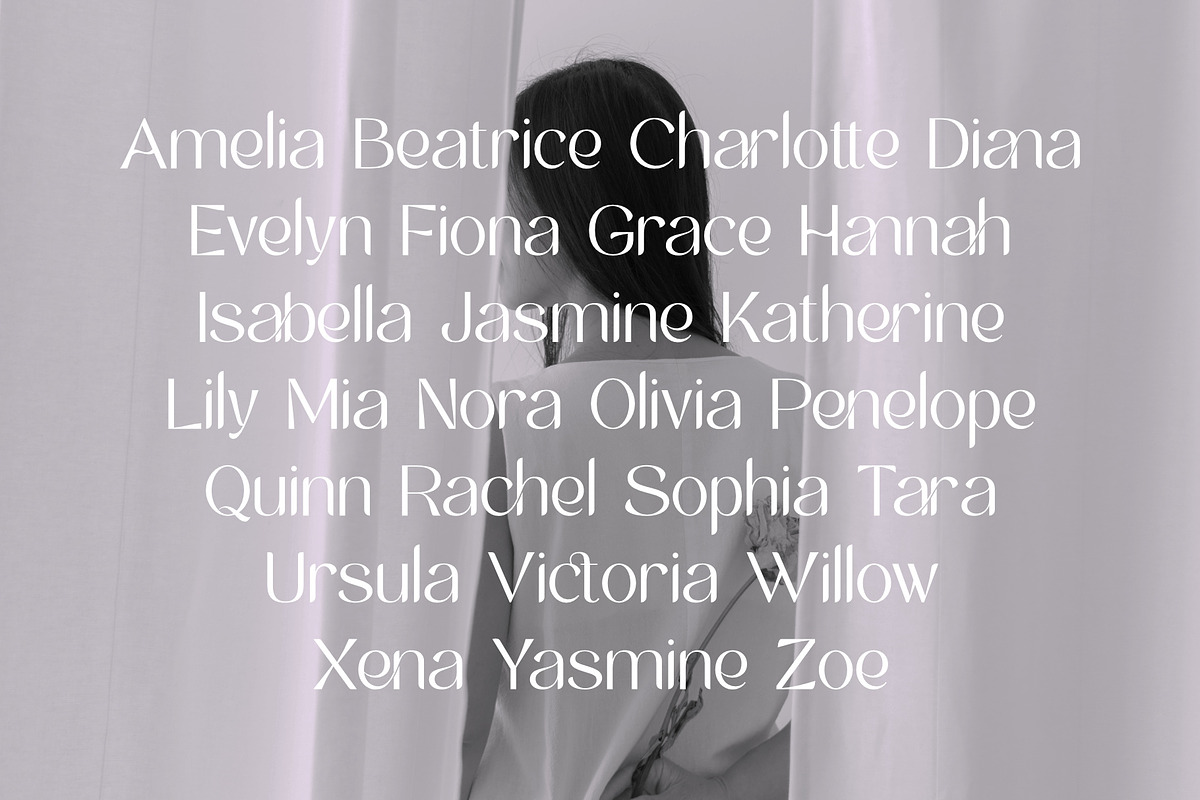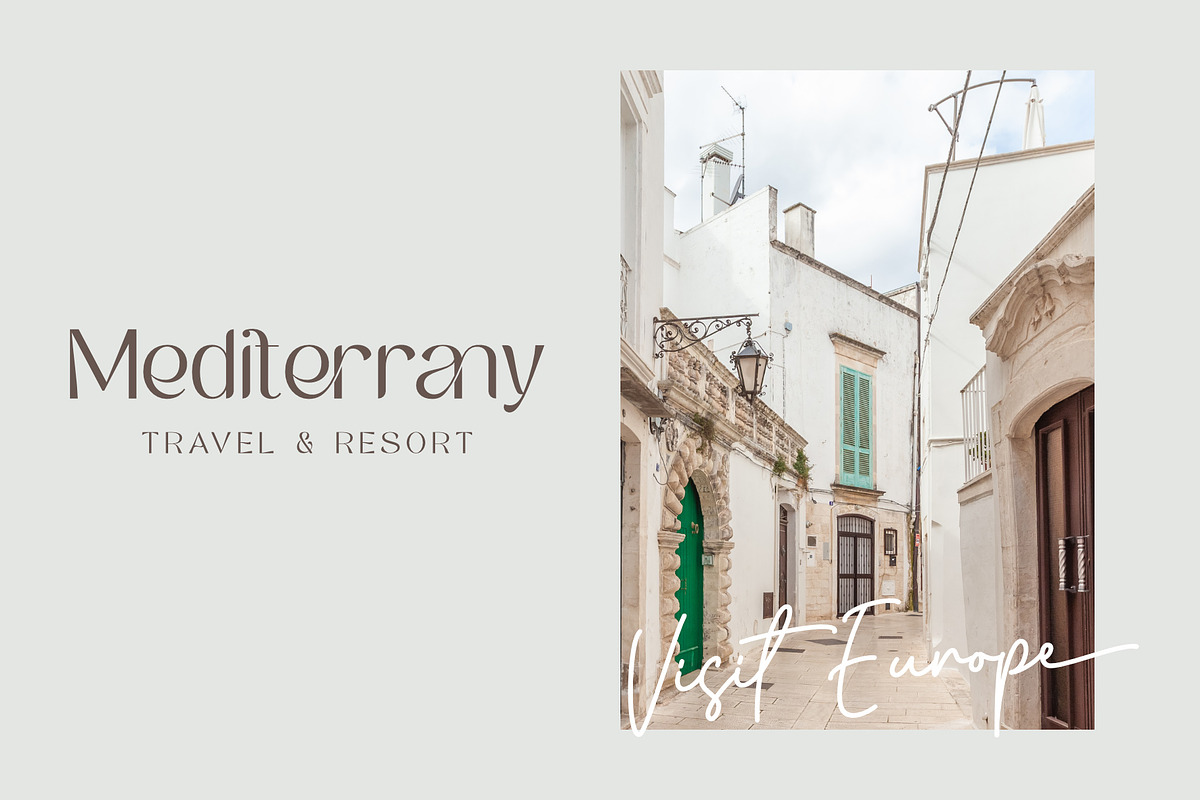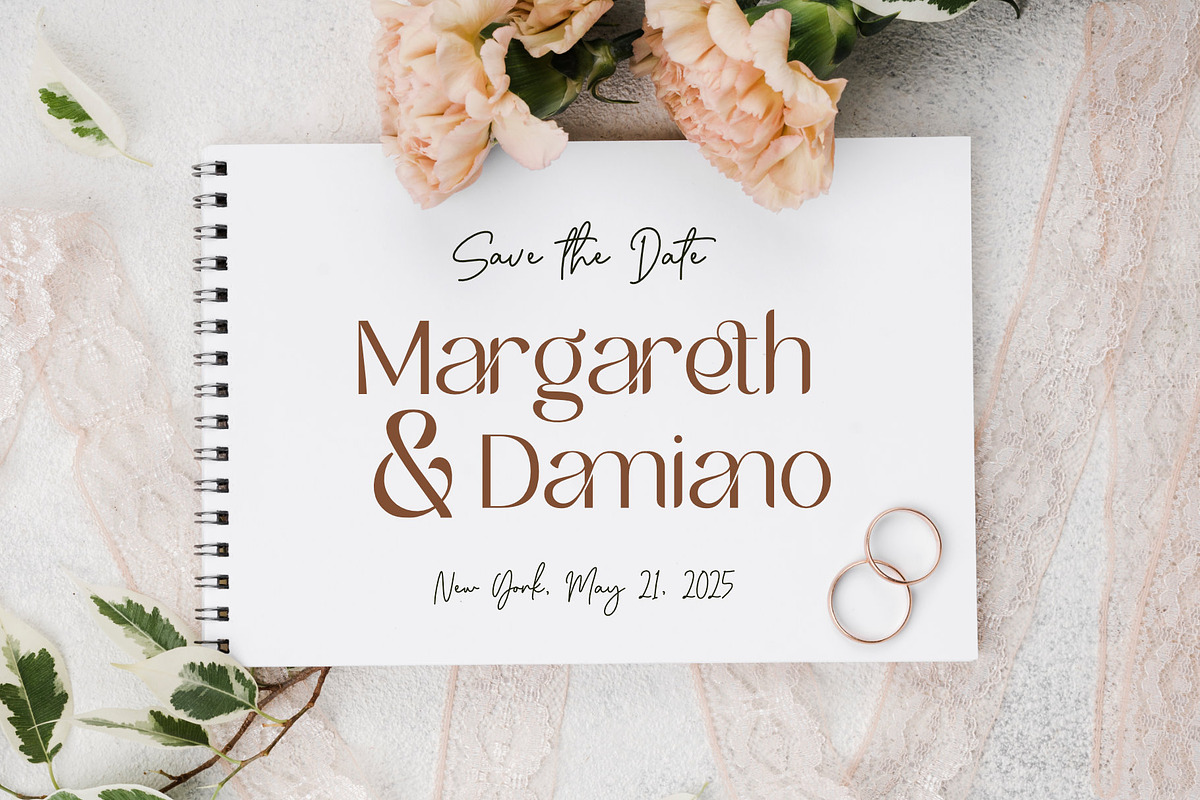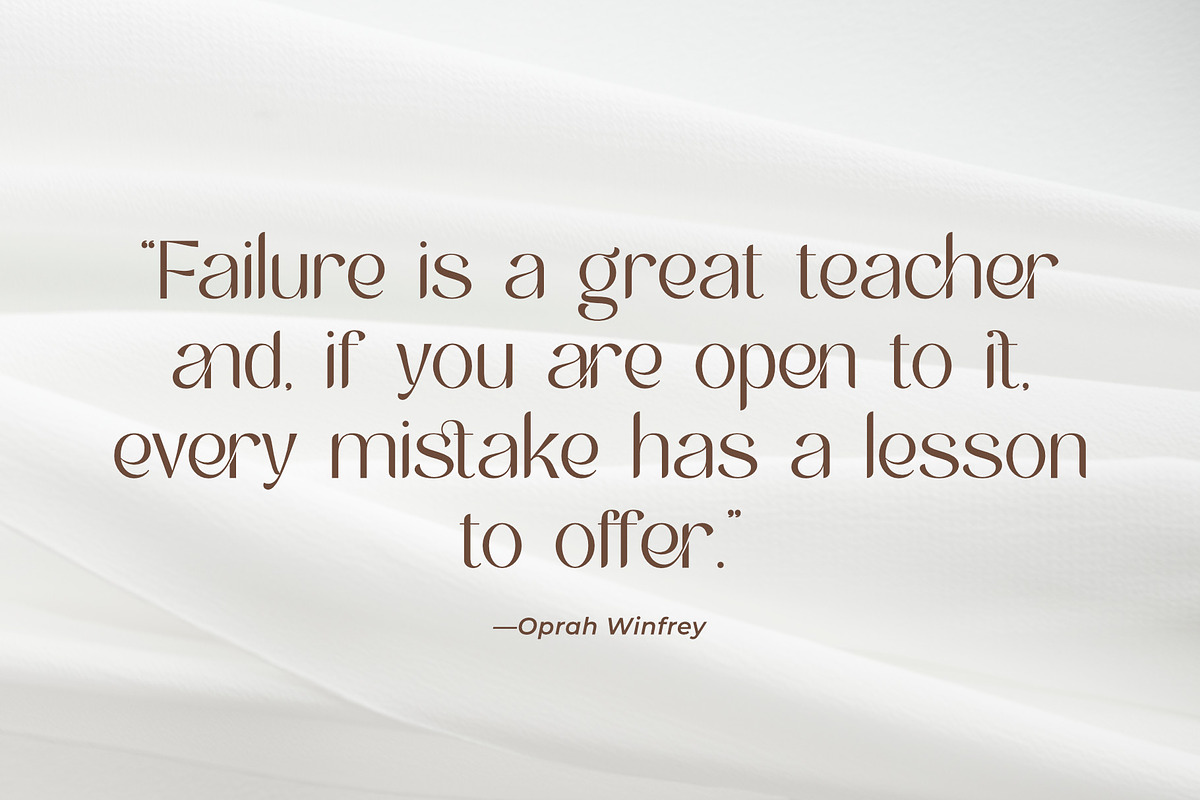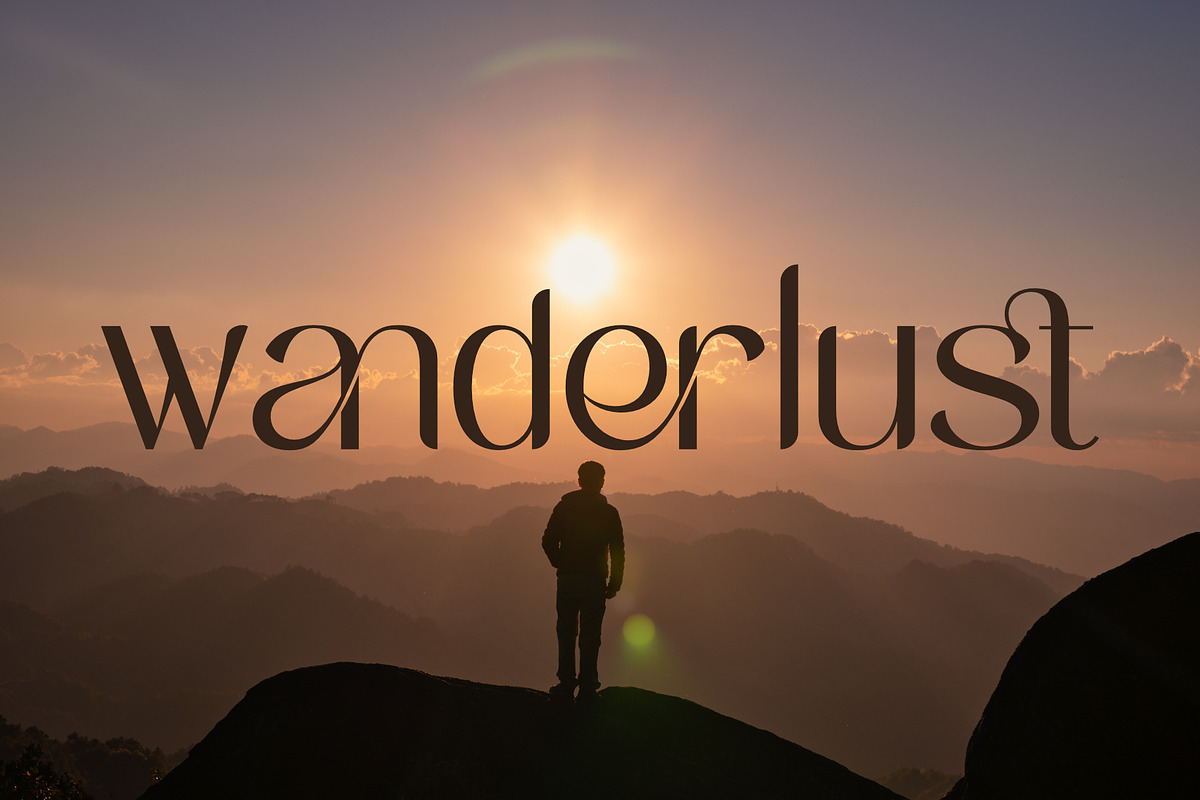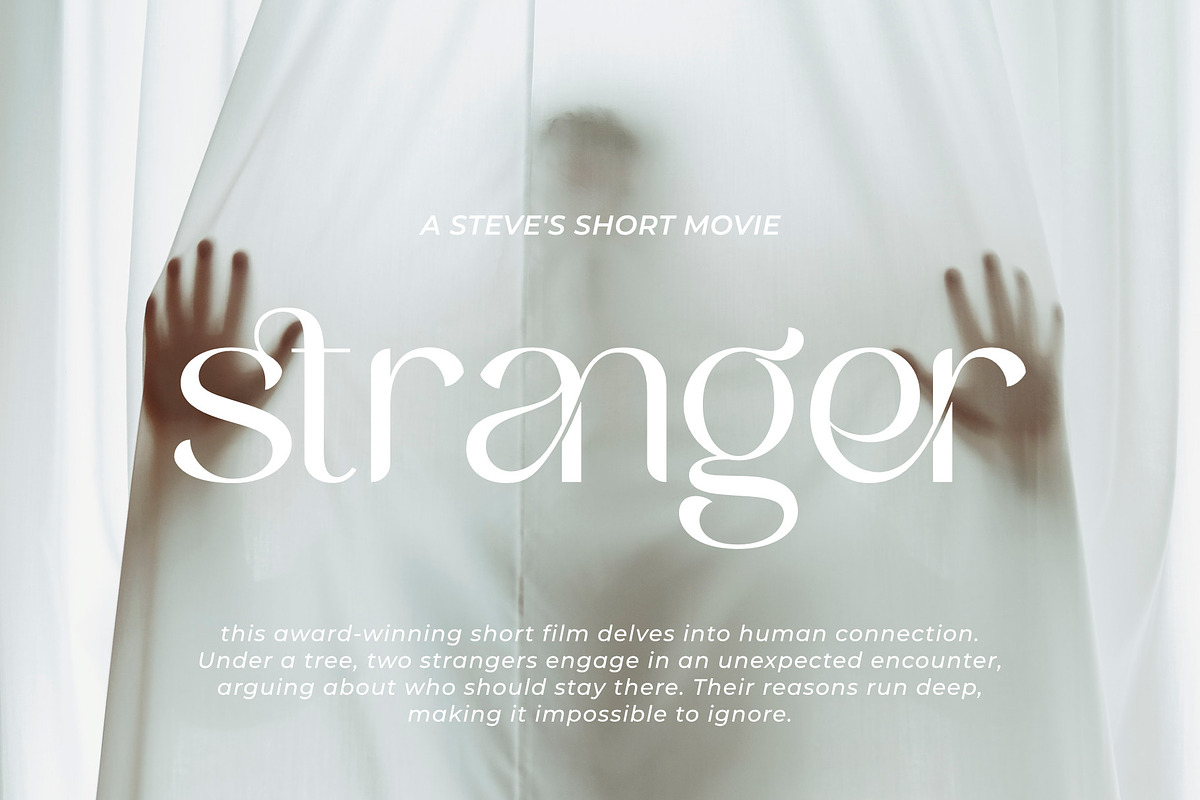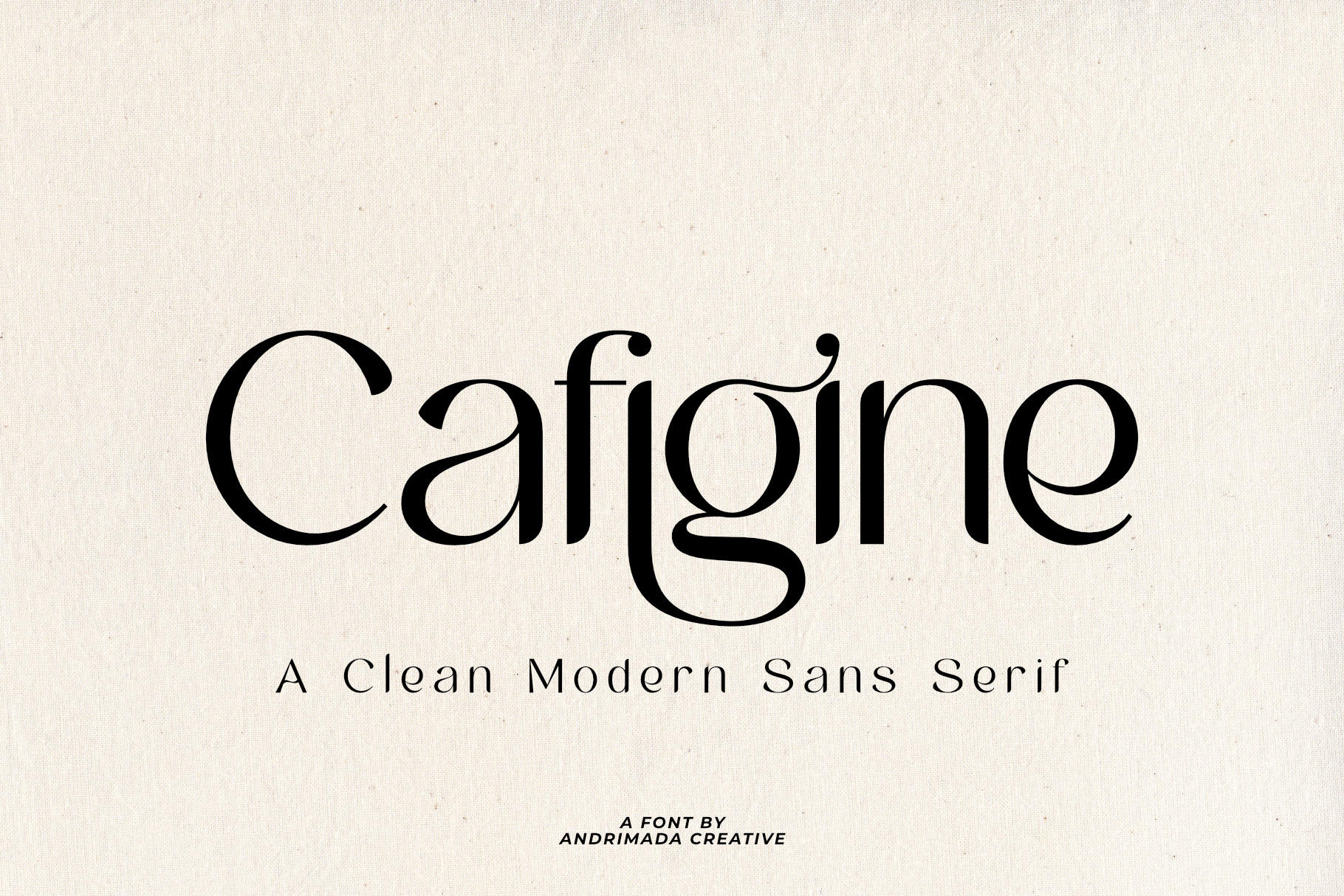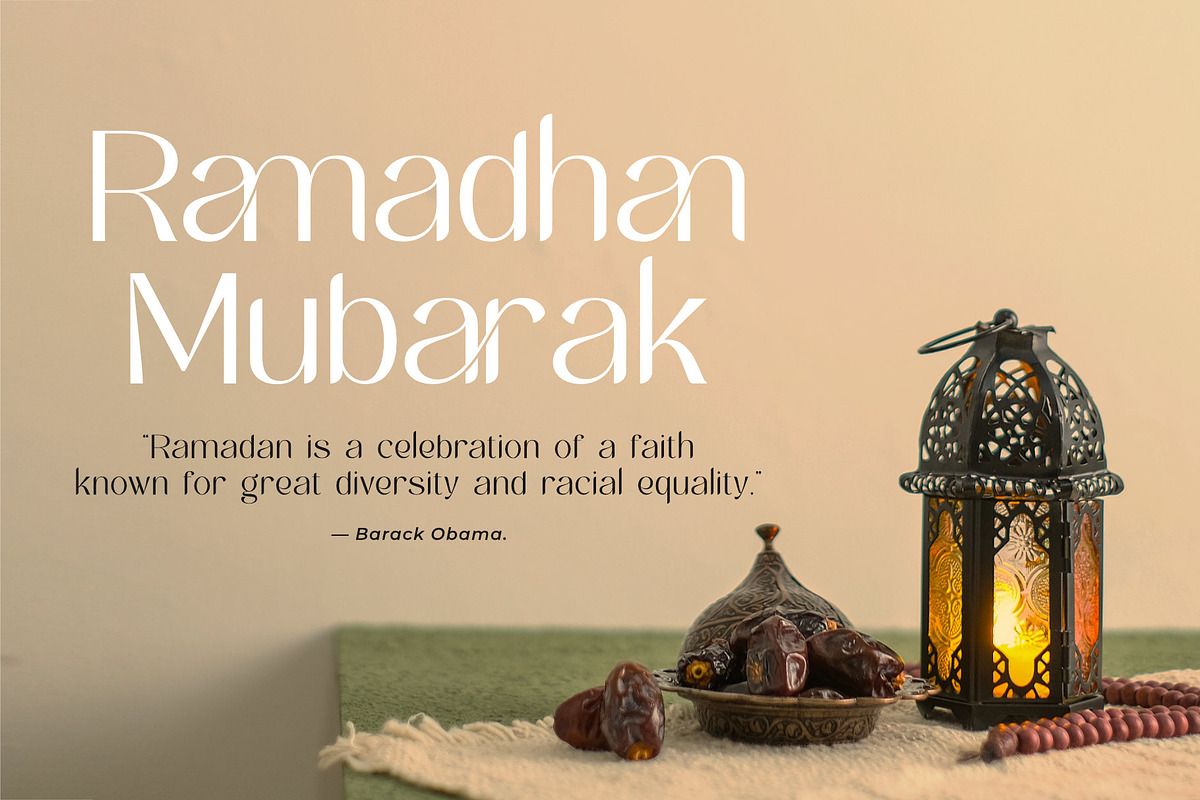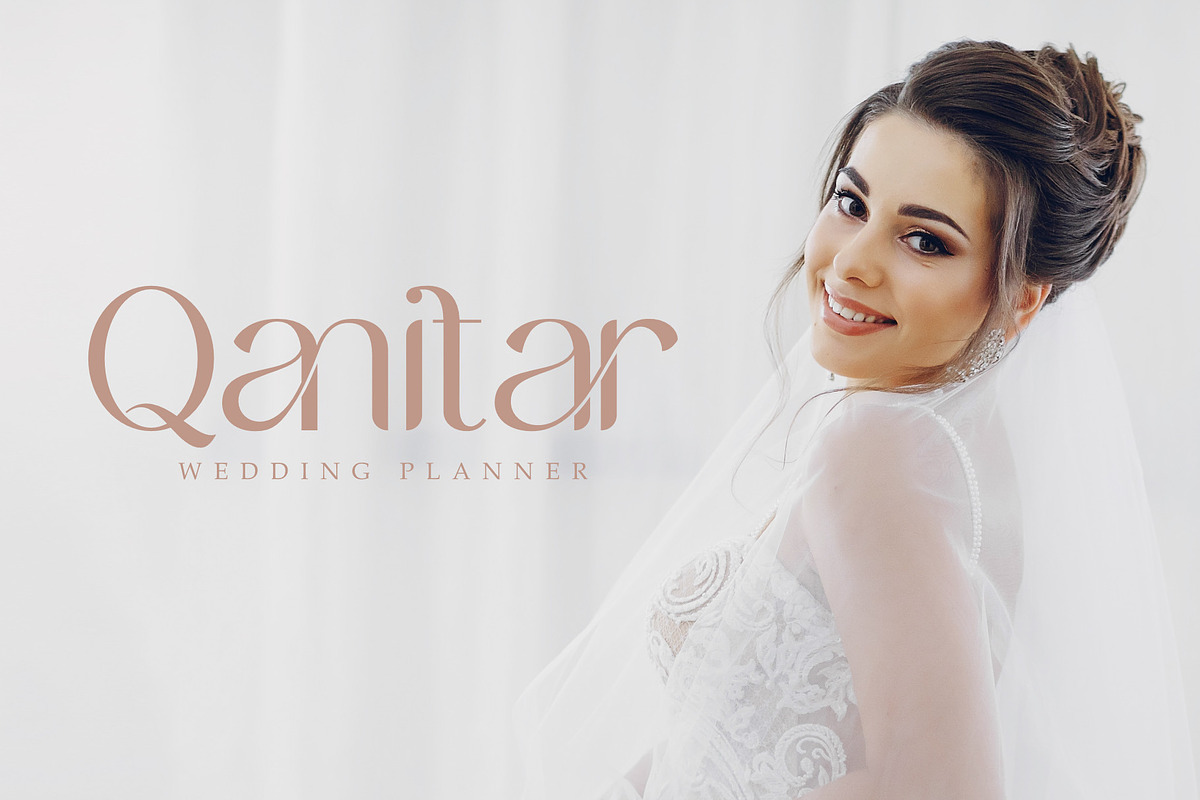
Cafigine | Modern Sans Serif Font
Step into the realm of Cafigine, a modern sans serif font that is the epitome of contemporary elegance. With its beautiful and smooth characters, Cafigine is a versatile typeface that is perfect for an array of design needs, from wedding designs to logotypes, and from inspiring quotes to branding materials. The font’s alternates and ligatures offer designers the freedom to create stunning results that are as unique as they are impactful.
Cafigine is not just a font; it’s a statement of modern sophistication. Its clean lines and balanced proportions make it a standout choice for any project that demands a touch of class. Whether you’re looking to captivate with a wedding invitation or make a bold statement with your brand’s logo, Cafigine delivers with a professional and polished look.
- Alternates and Ligatures